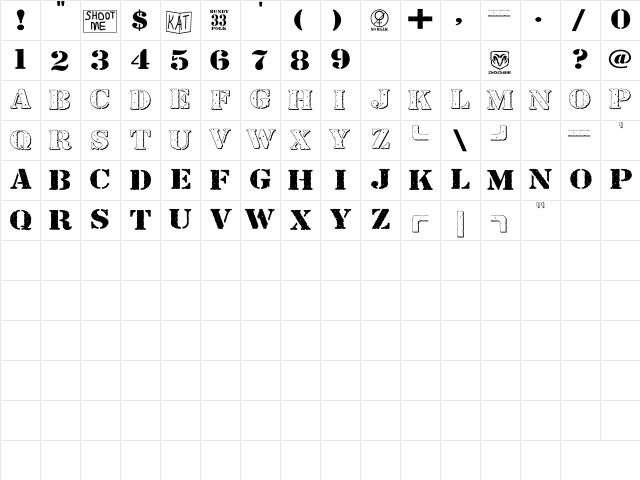
Bundy Yellow HollowShadowed HollowShadowed
| Style | HollowShadowed |
Design Context for Bundy Yellow HollowShadowed Typeface
Bundy Yellow HollowShadowed brings ornamental detail and strong personality to headlines and identities, where visual impact matters more than quiet functionality.
Font Pairing: Pair with a clean neutral sans-serif for body copy to let Bundy Yellow HollowShadowed's character lead without overwhelming the composition.
Pro Tip: Treat Bundy Yellow HollowShadowed as the centrepiece of your typographic hierarchy. One strong heading set in a decorative face can carry an entire layout.